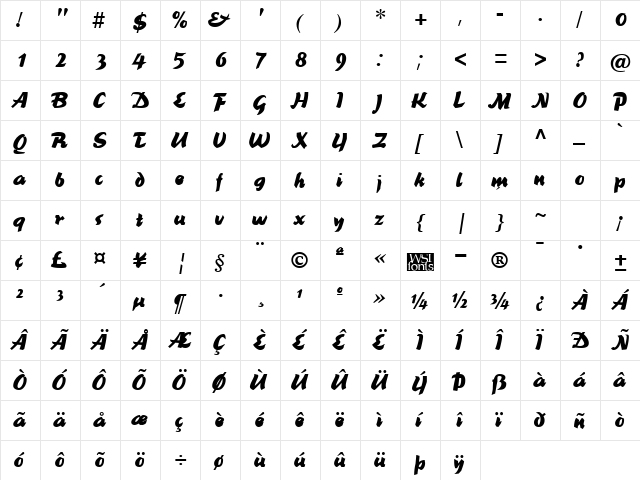
Brookscript Regular Font Preview
Brookscript Regular
Brookscript Regular Font Details
Design Context for Brookscript Typeface
Brookscript flows with the natural rhythm of handwritten lettering, making it ideal for designs that call for warmth and personal expression.